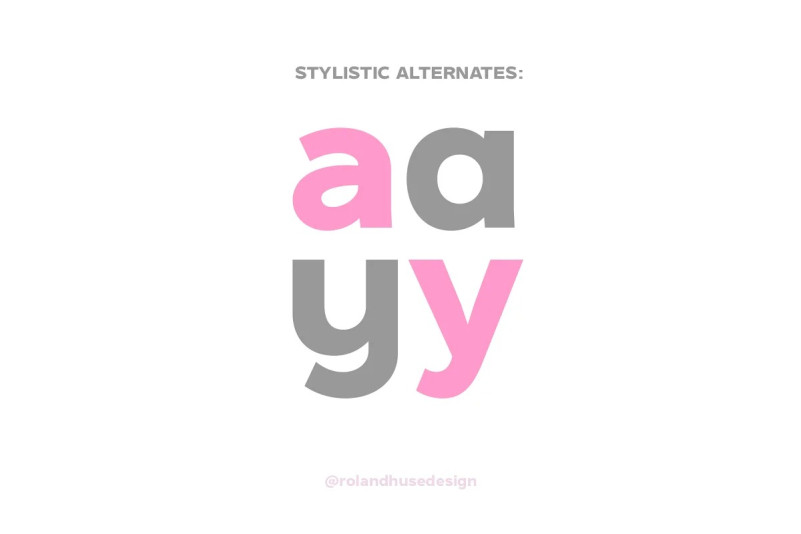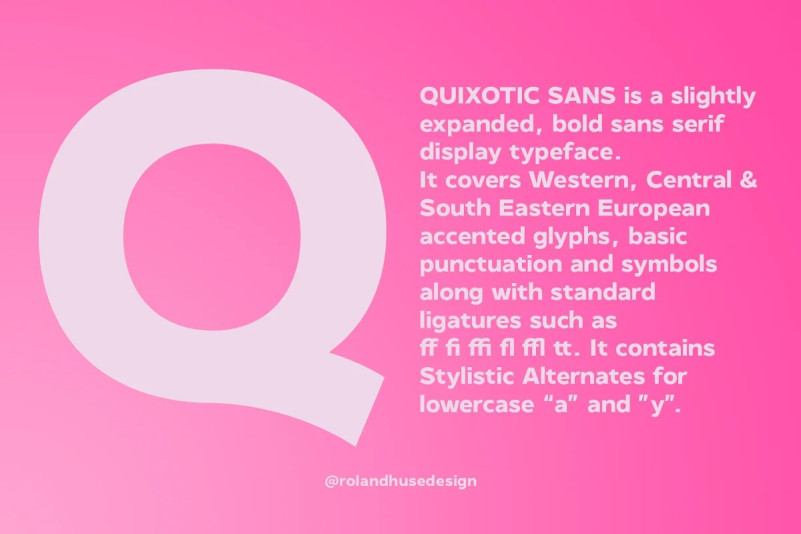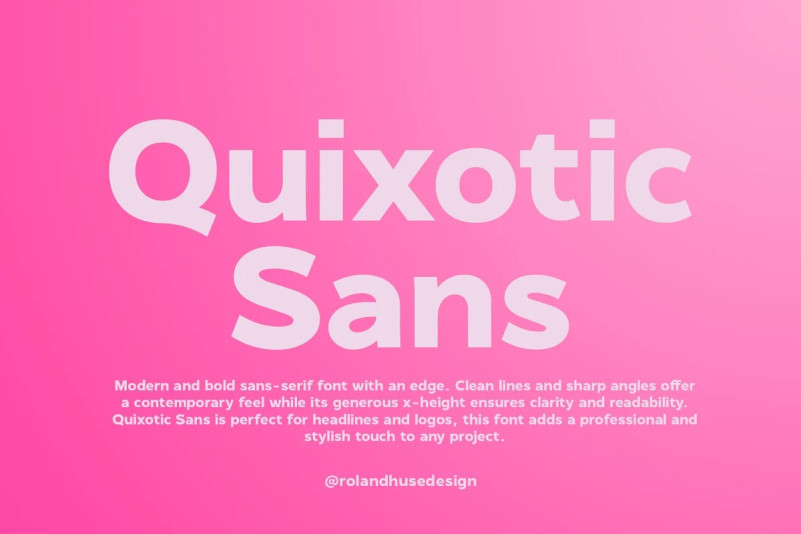
Quixotic Sans Font
Quixotic Sans Font, A bold, display sans serif typeface. It covers Western, Central and South Eastern European accented characters, basic punctuations, symbols, currencies and standard ligatures such as fi, fl, ff, fyi, ffl and tt. There are stylistic alternates for lowercase “a” and “y”. Best for large size texts for ads, brochures, posters, logos and headlines.